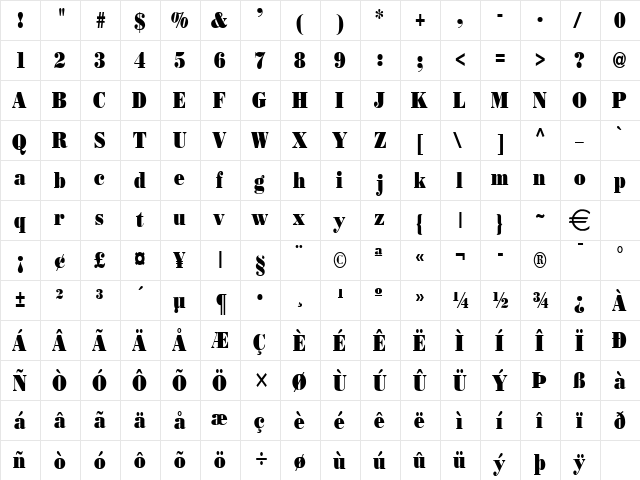
BeauCondensed Normal
Design Context for BeauCondensed Typeface
BeauCondensed takes a measured approach to typography — its balanced proportions and neutral character make it a reliable workhorse for both digital and print work. The condensed width makes it efficient for tight spaces without sacrificing legibility.